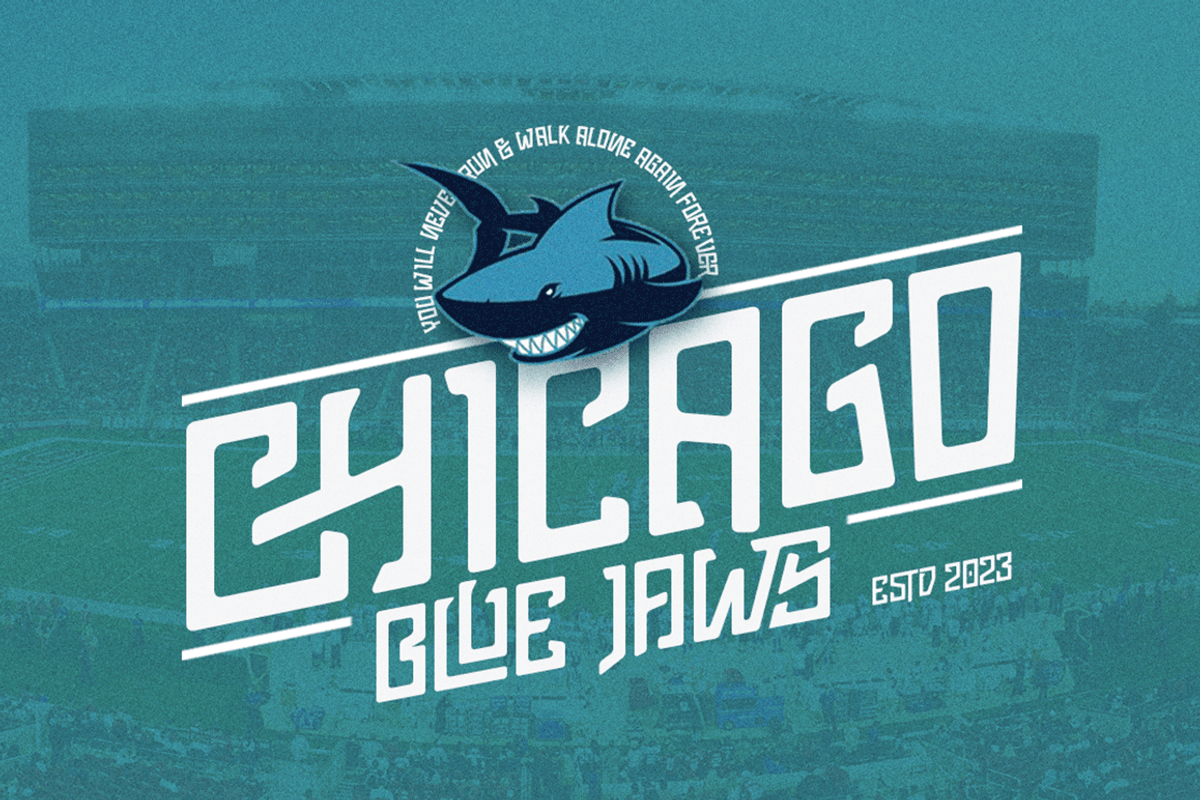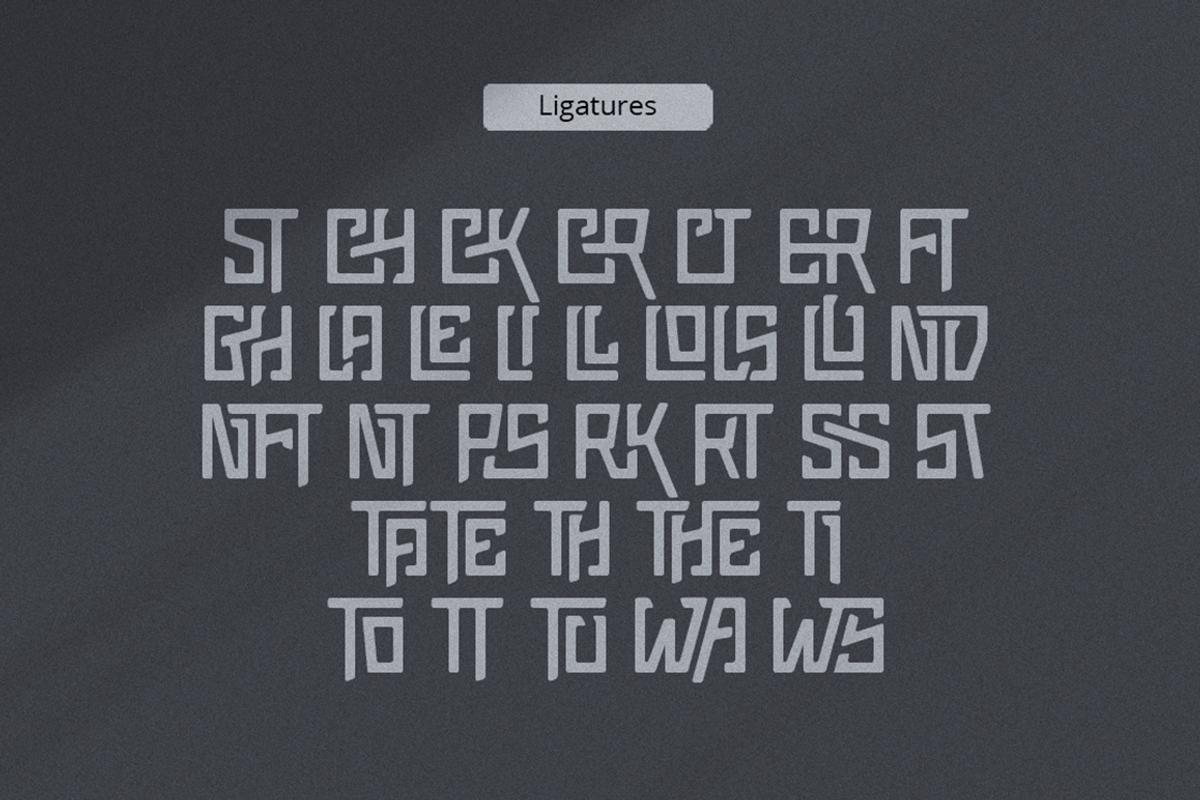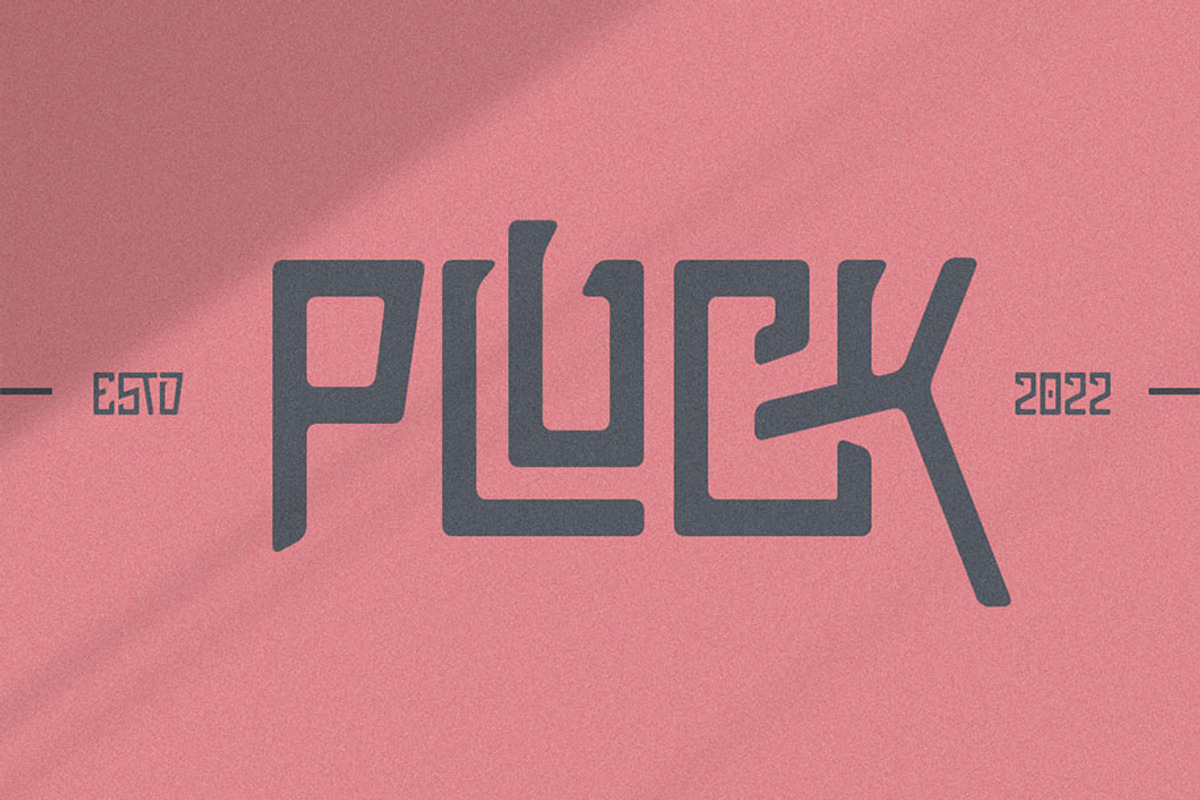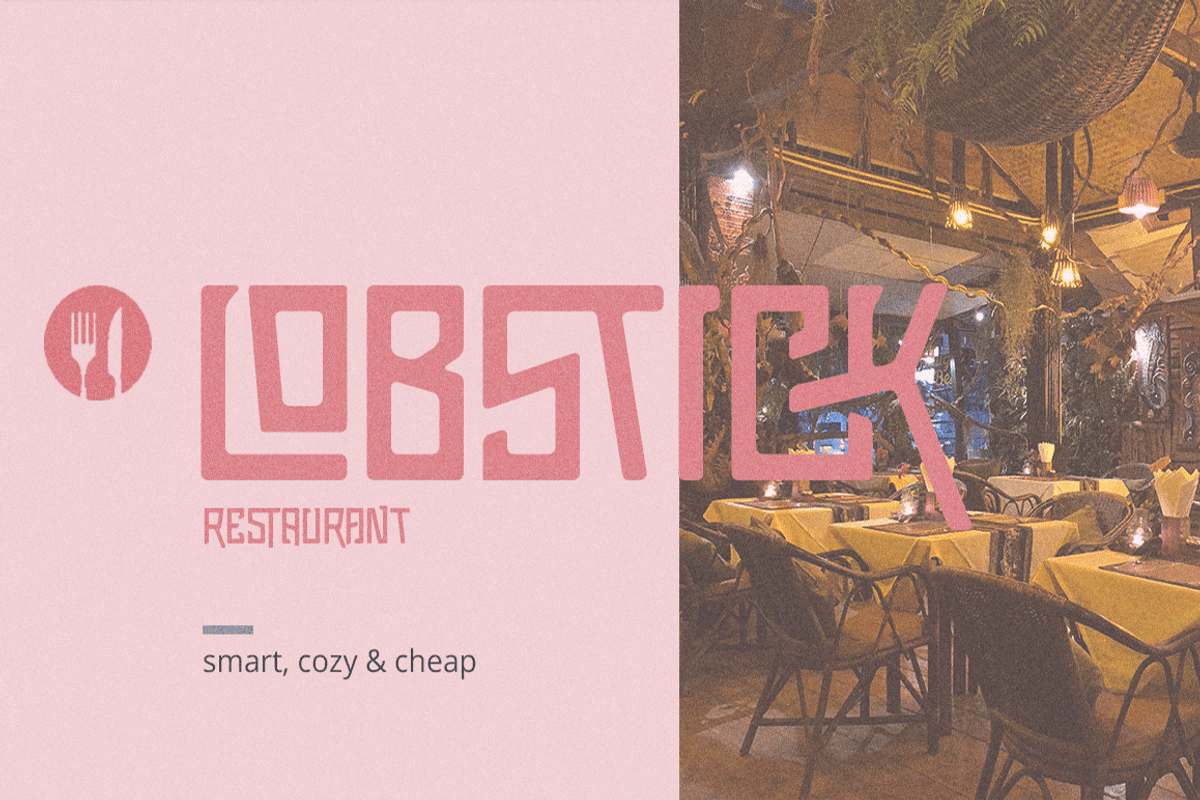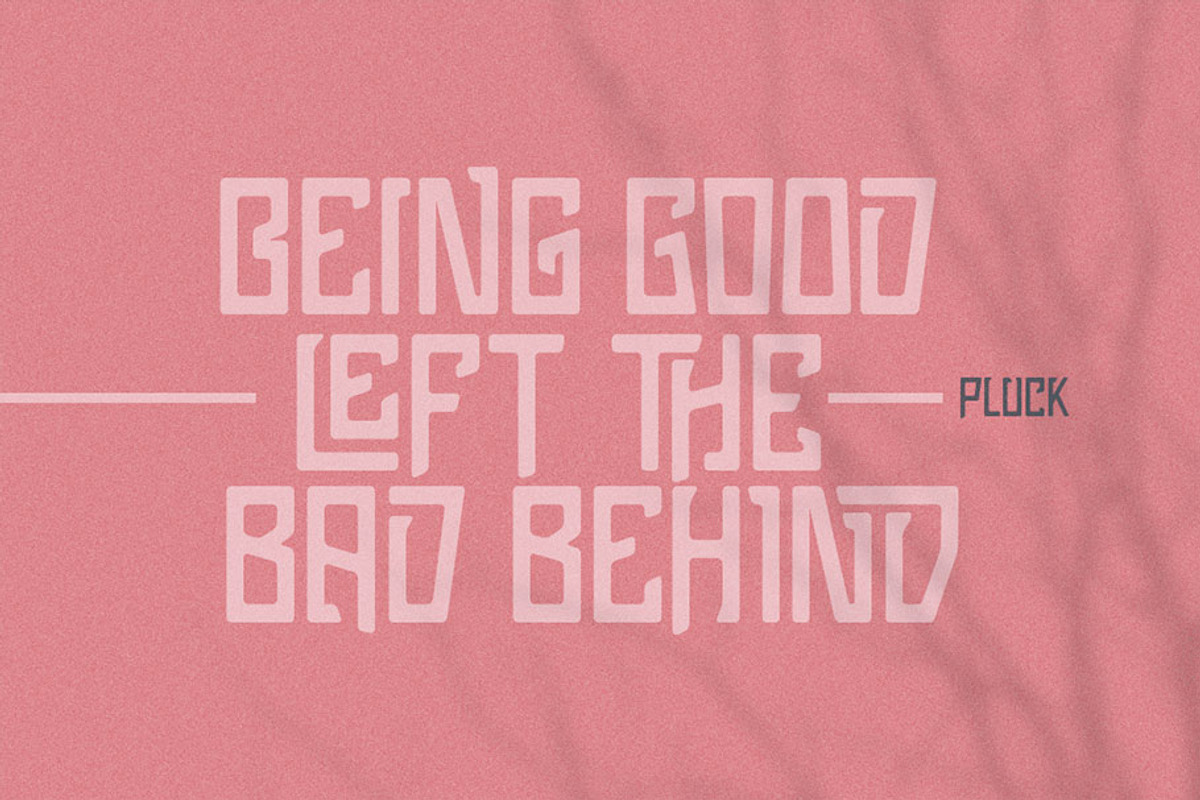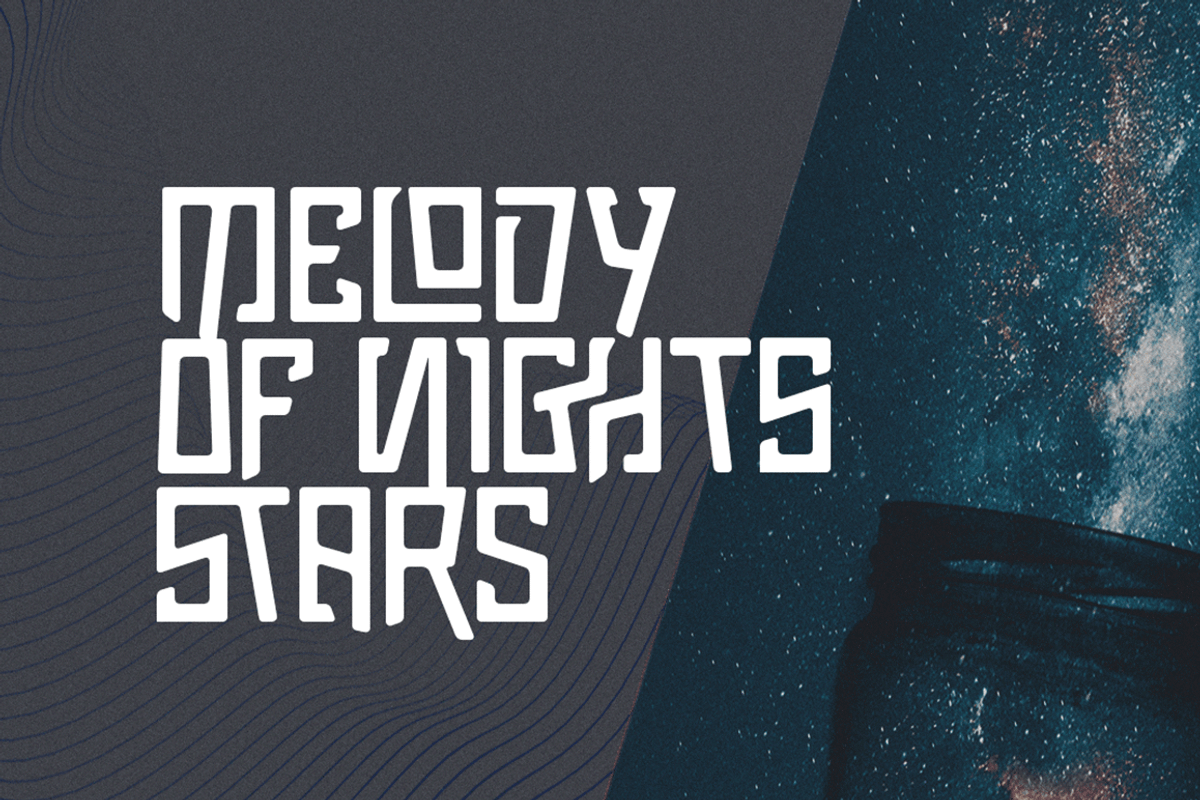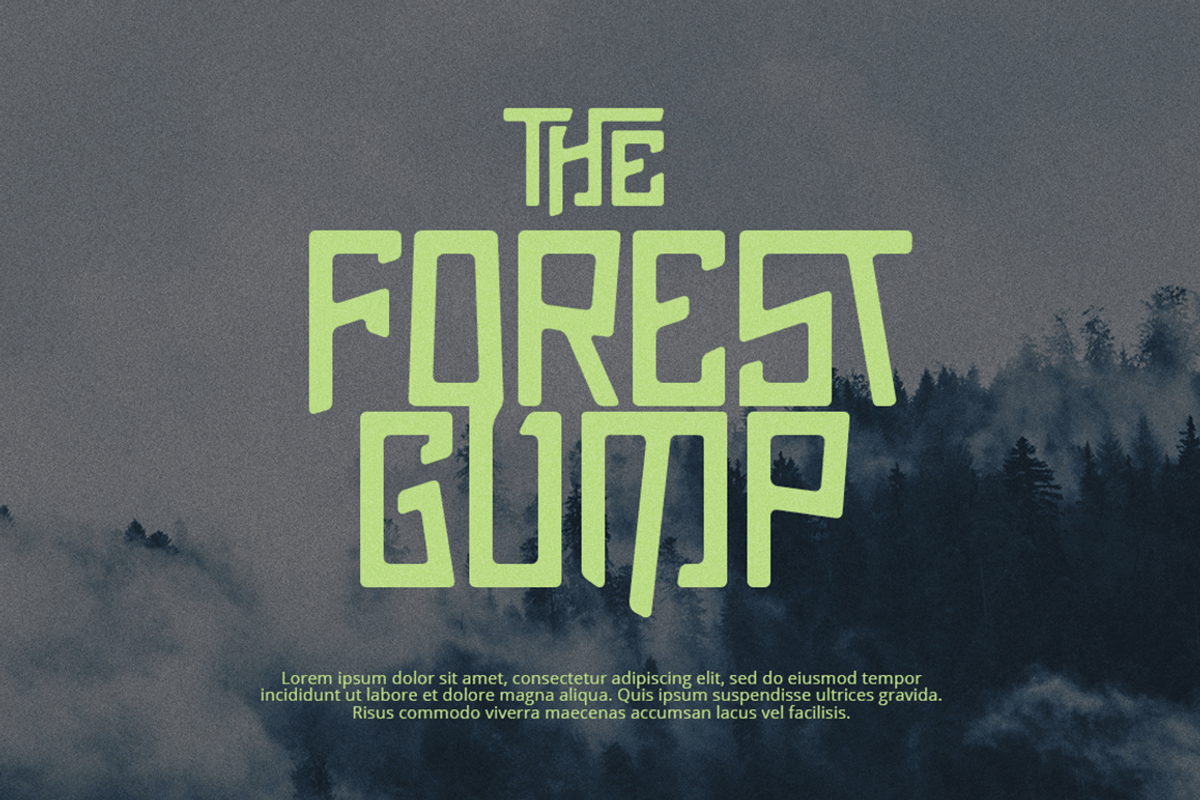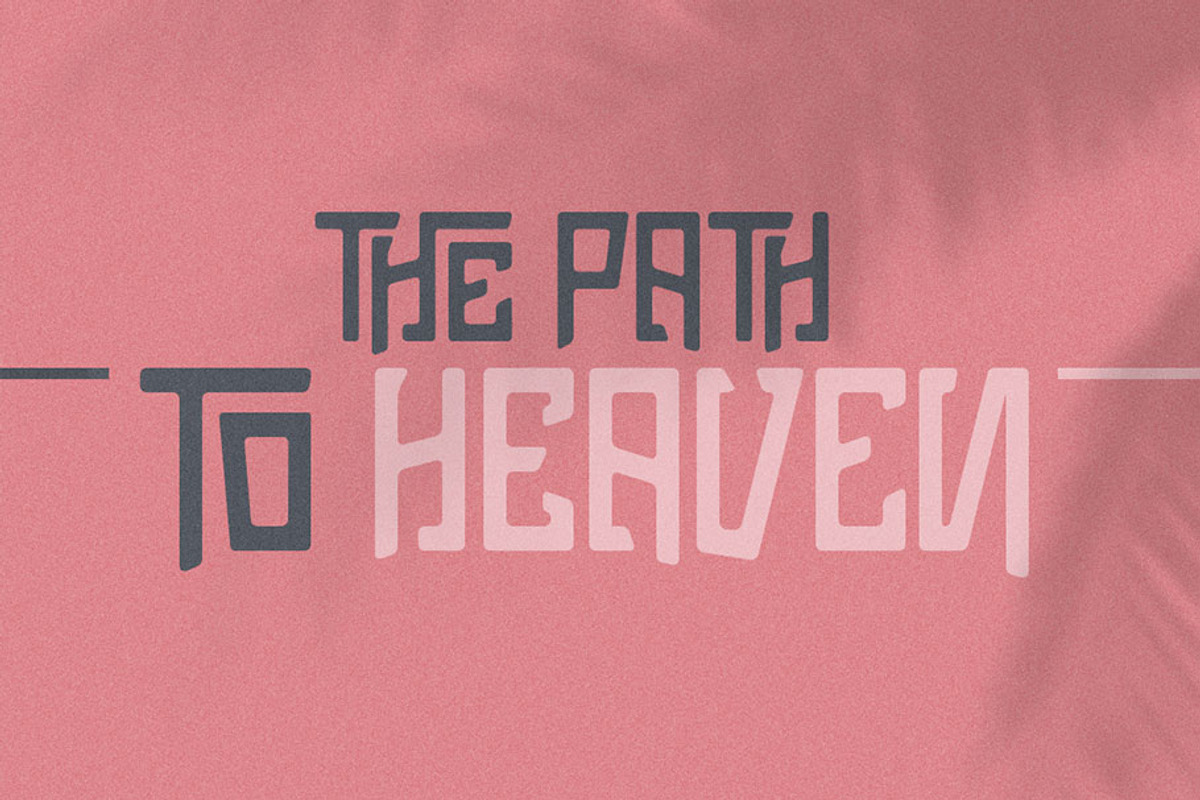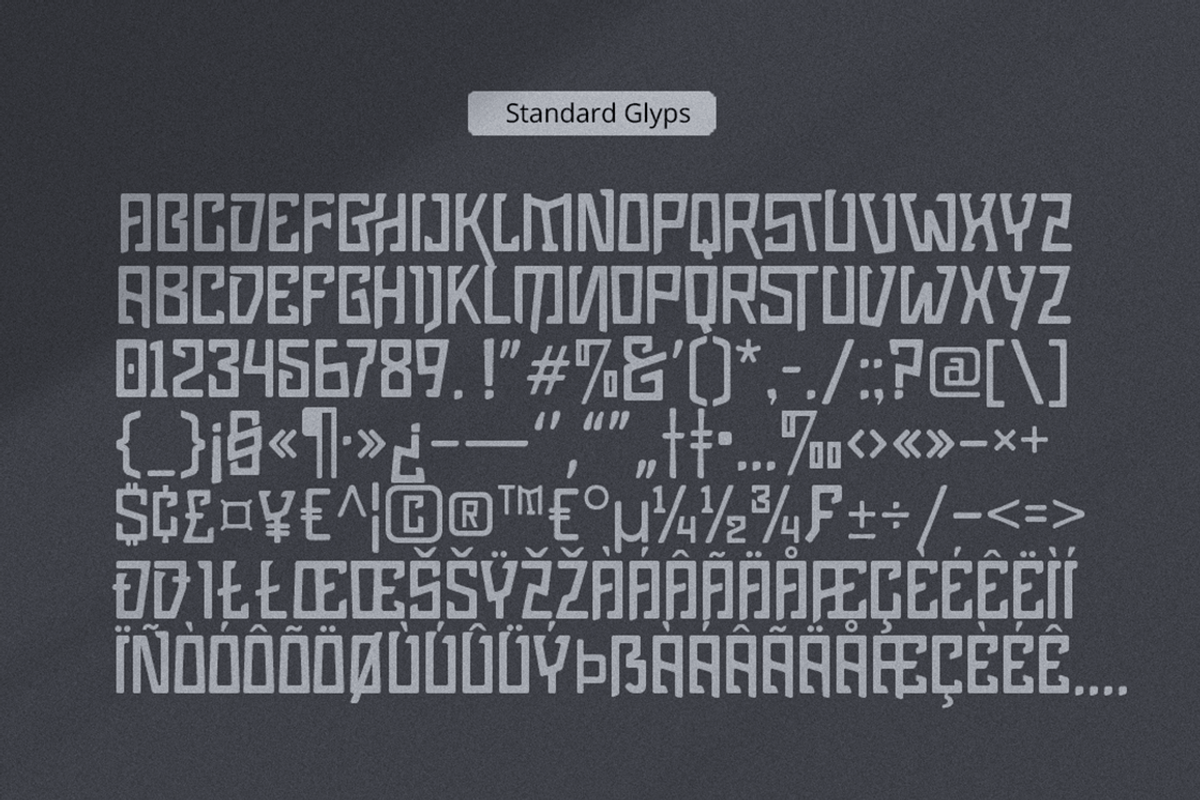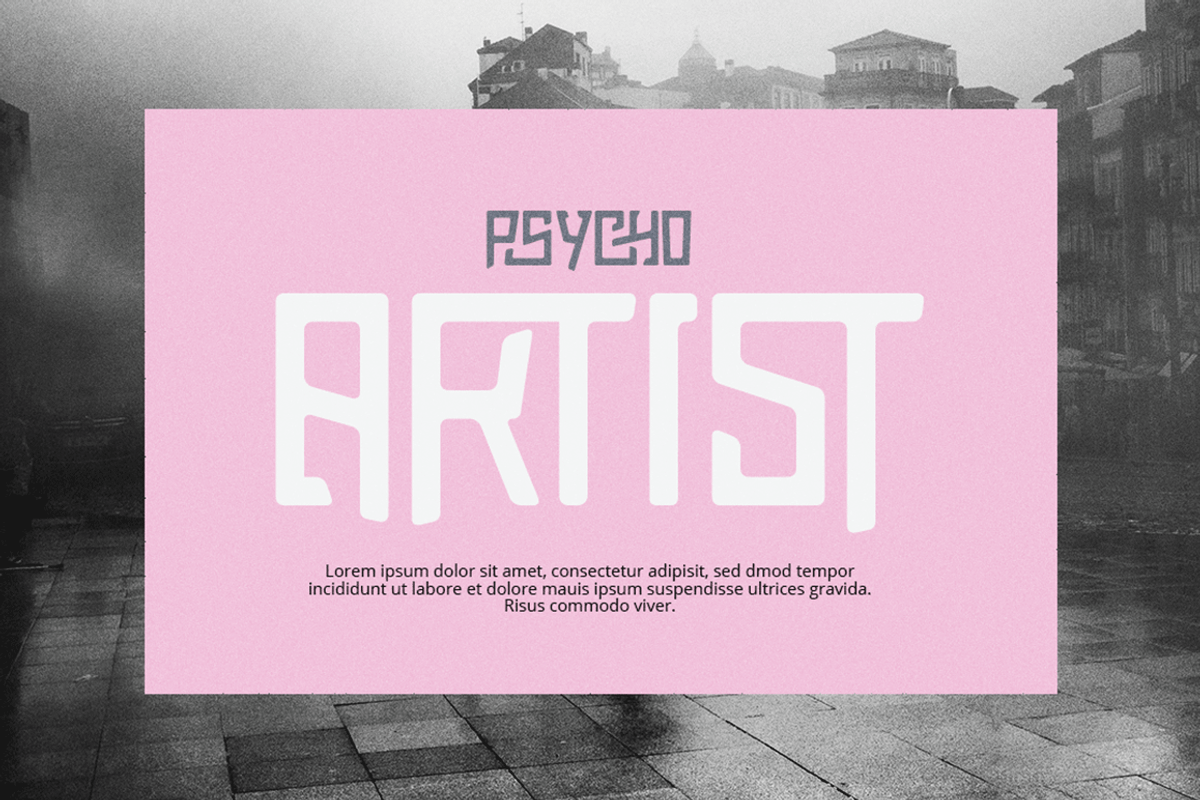
Pluck Font
Pluck is an attractive Display typeface that created elegant and modern look. To pick this font is a solution for your awesome graphic projects such a magazine Header, movie poster or flyer design that require a unique touch. This font is a great option in designing logo tagline, and also can be used in invitational cards and another printable stuffs.
- All Caps and Small Caps Character
- Numbers and Punctuation
- Special Characters
- Ligatures.